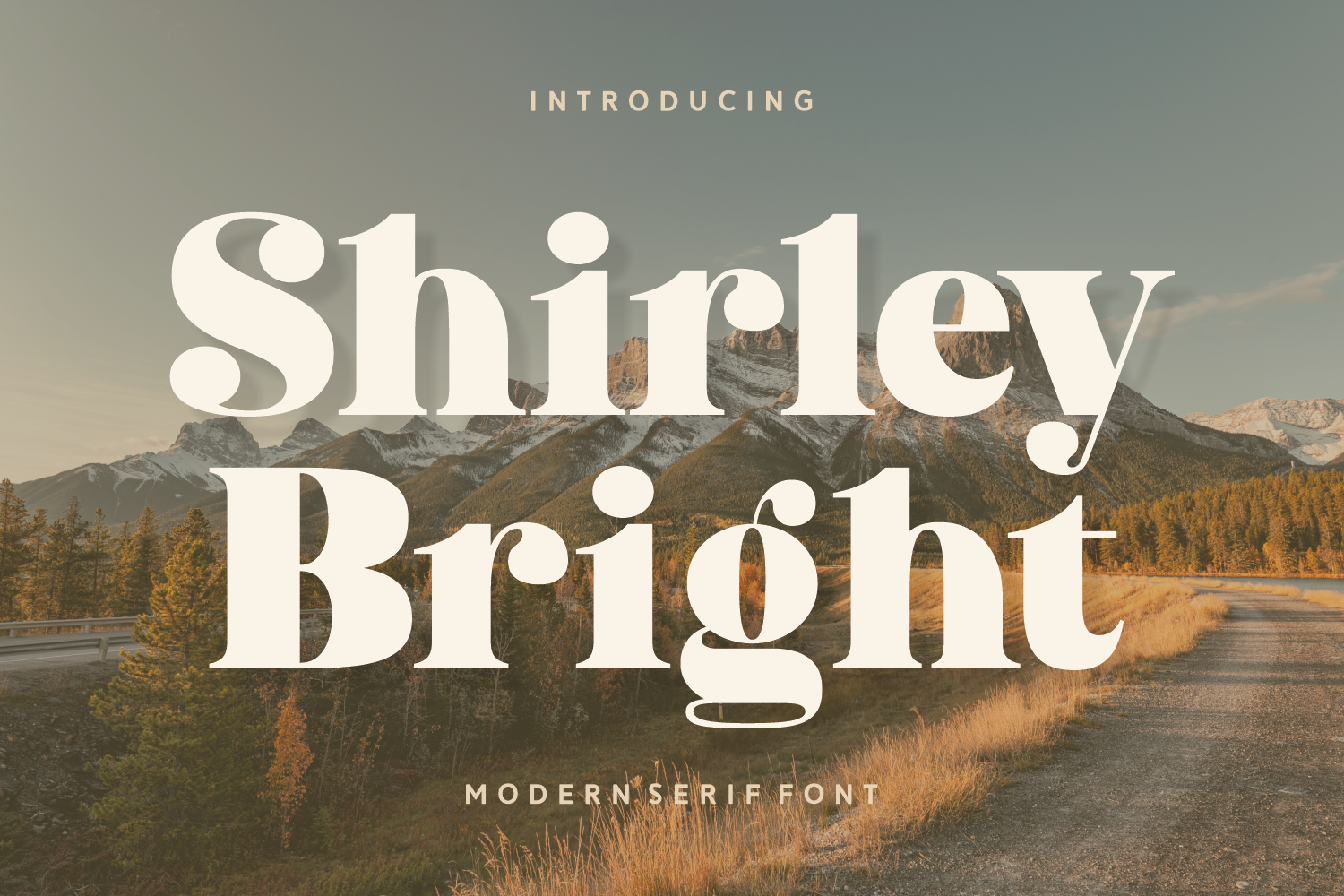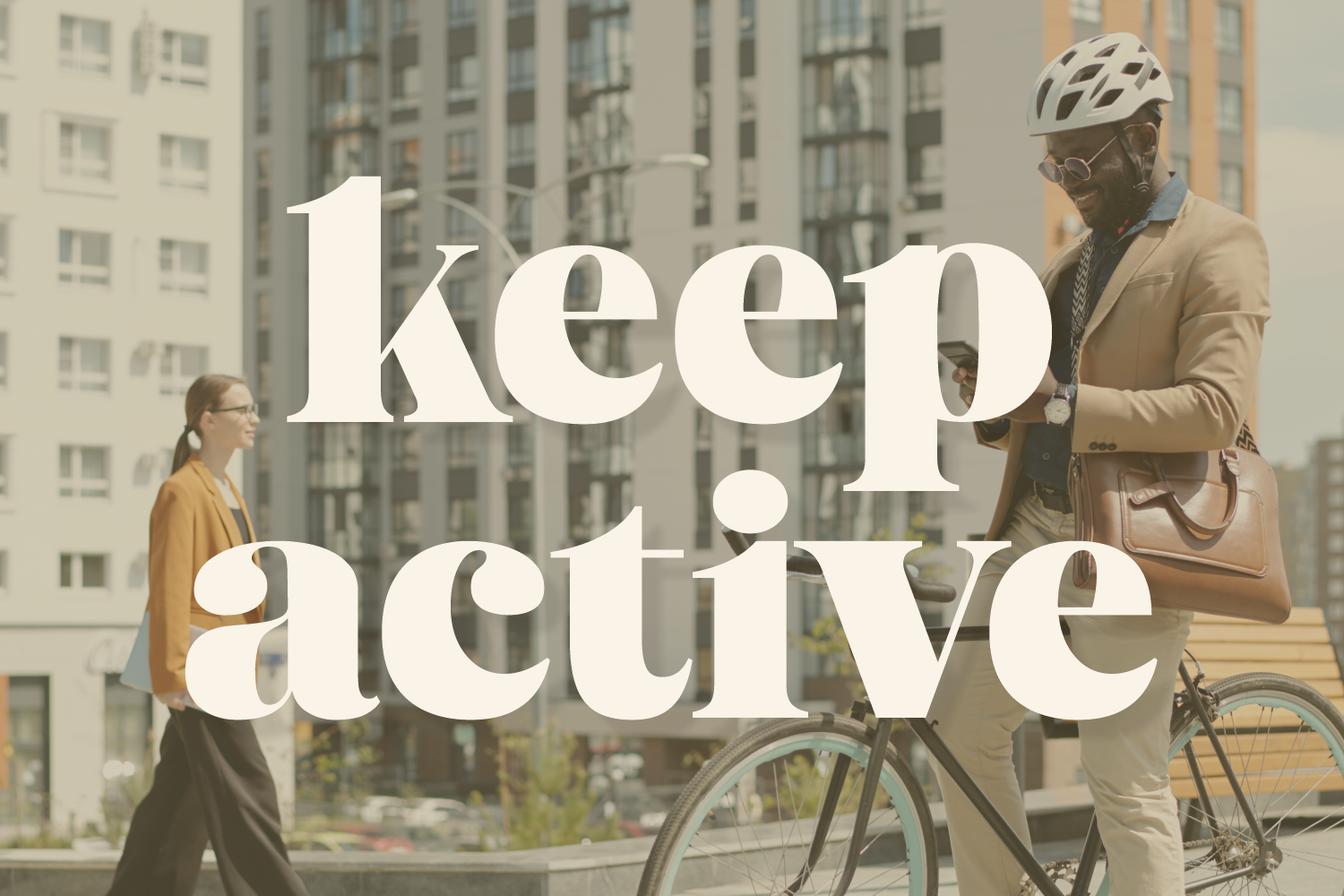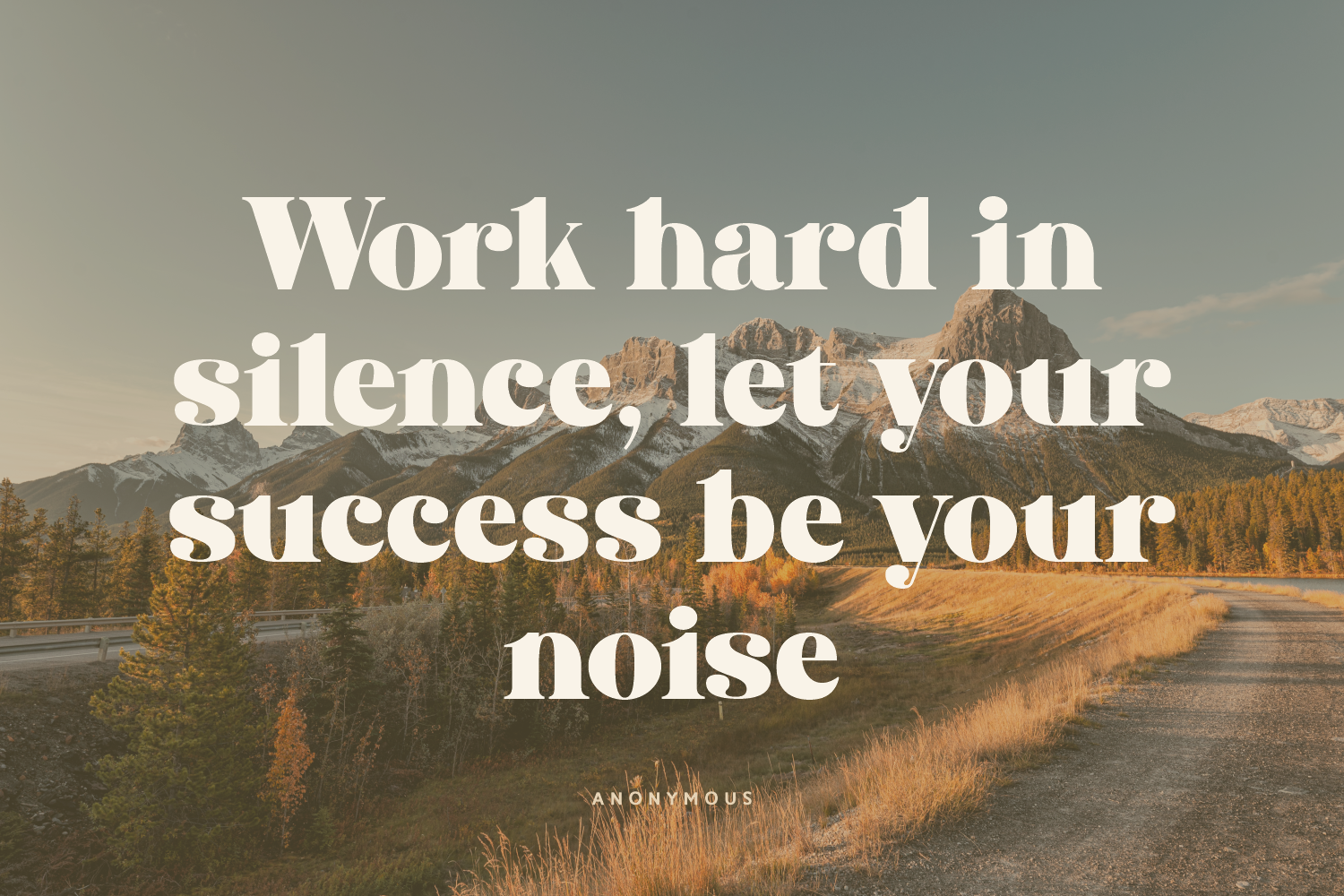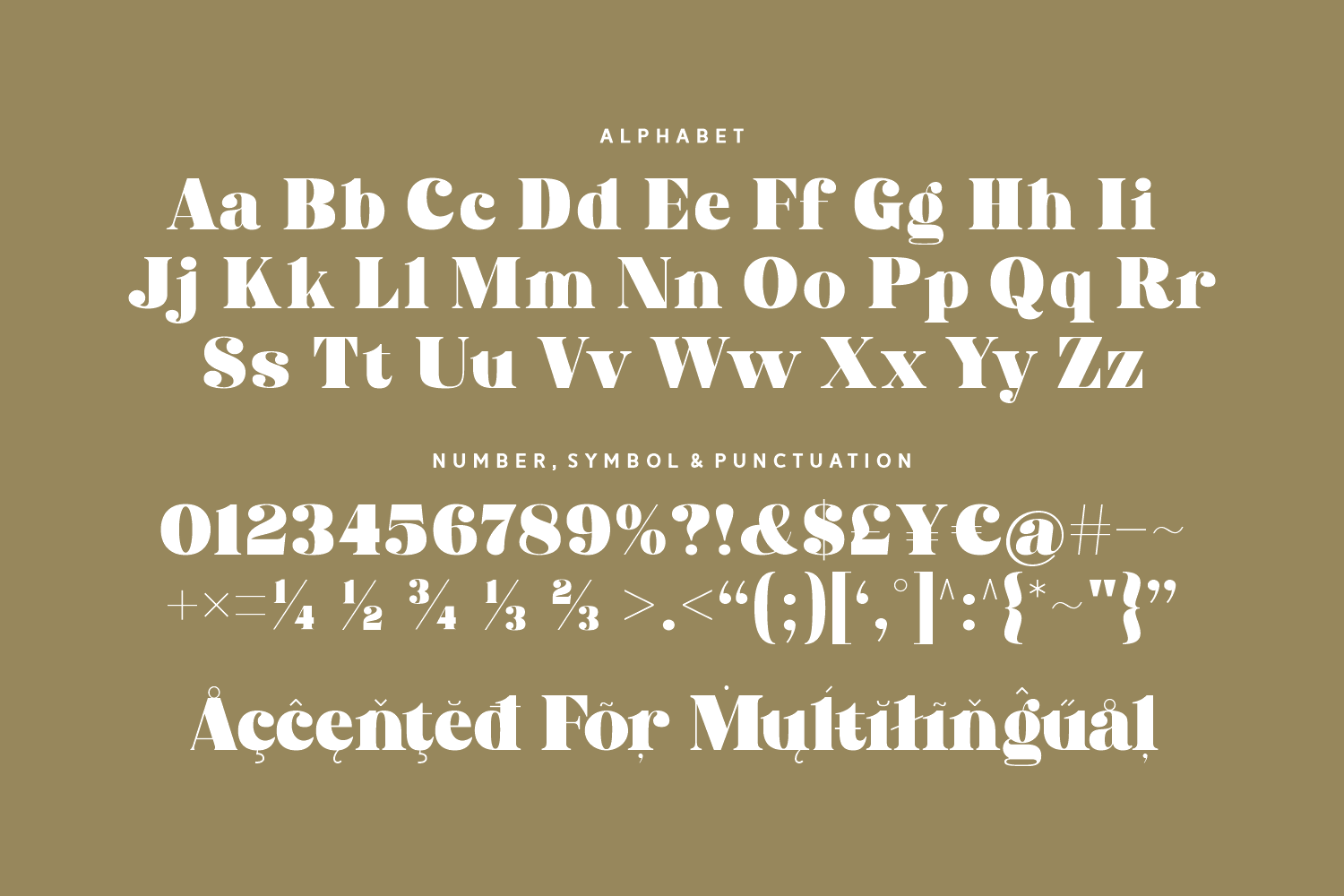
Shirley Bright
Shirley Bright is a bold and charismatic modern serif font that makes a striking statement. With its high-contrast strokes, strong curves, and playful terminals, this typeface radiates both confidence and creativity.